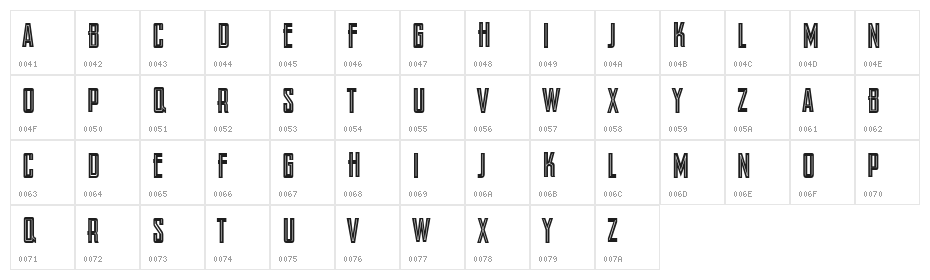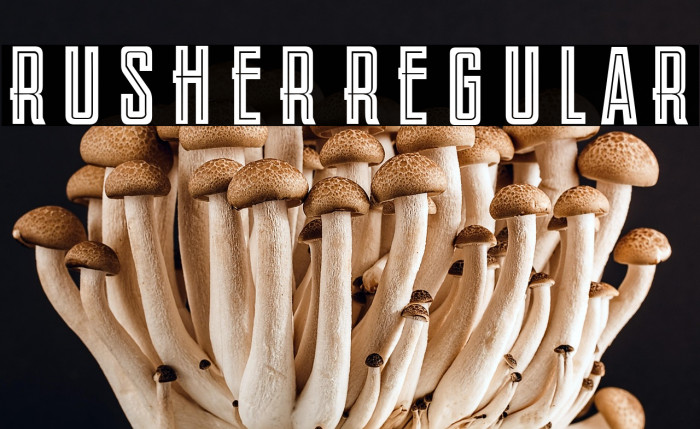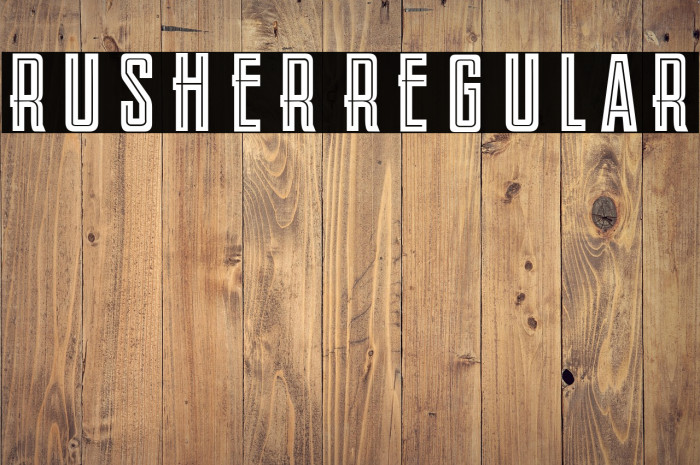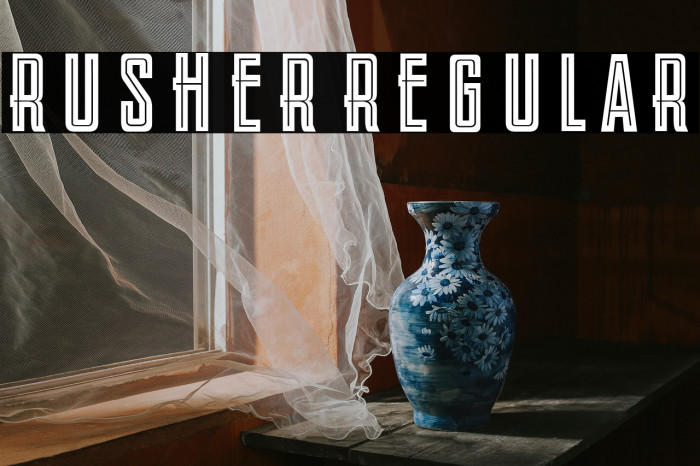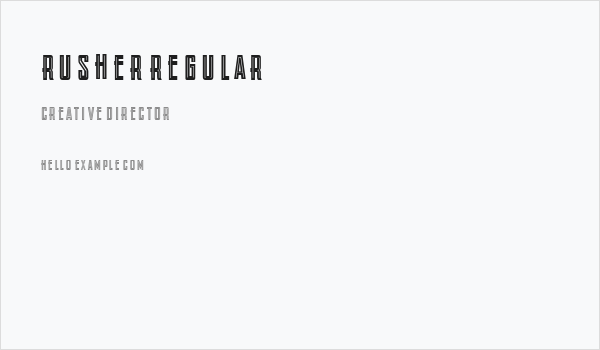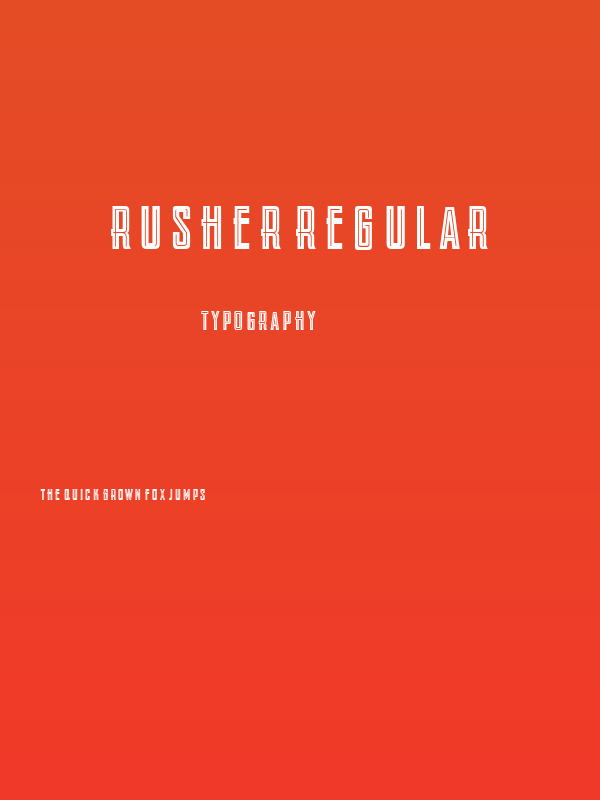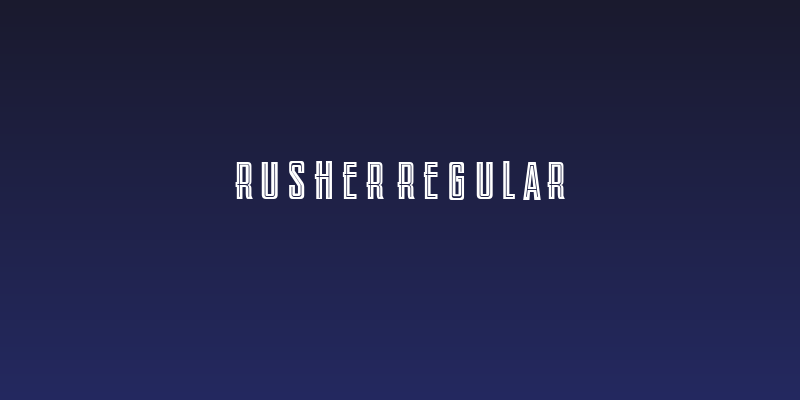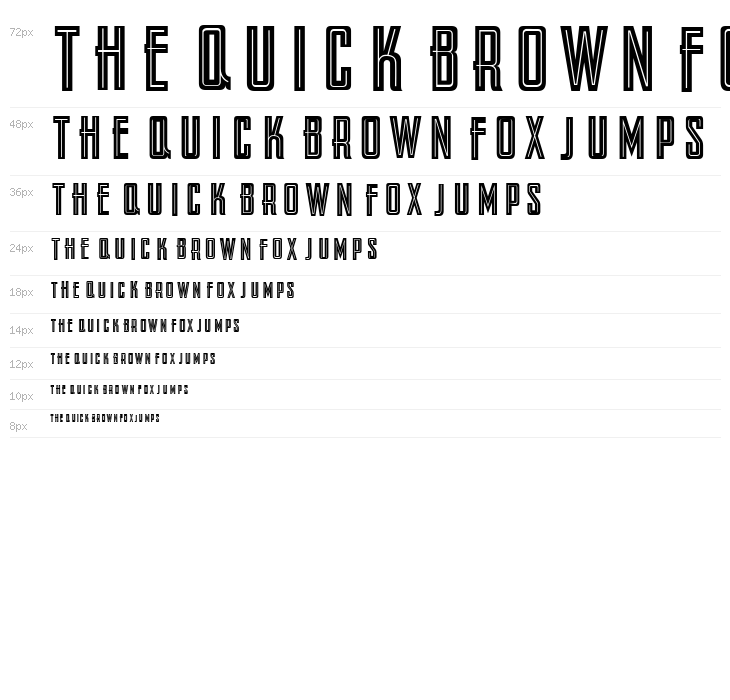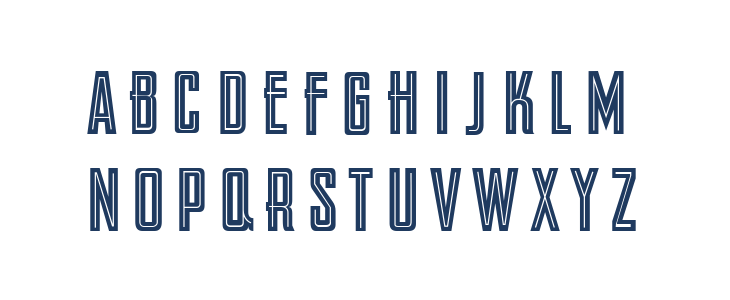
Rusher Regular Font
Rusher Regular Description
This font features a bold and modern design with a strong geometric structure. The characters are outlined with a double line effect, creating a sense of depth and dimension. The uppercase letters are uniform in height, with sharp angles and clean lines that convey a sense of strength and stability. The overall appearance is sleek and contemporary, making it suitable for a variety of design applications. The font's unique style is both eye-catching and versatile, ideal for projects that require a bold statement.
| Proposed Projects | Ideal for branding, posters, headlines, and any design requiring a strong visual impact. |